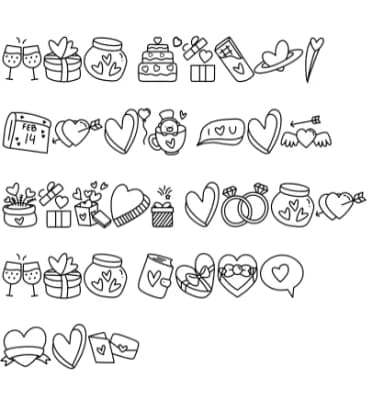
1 / 8About Happy Vanlentine Day Font
You're laying out Valentine invitations and need ornaments that feel sketchy and warm, not slick or corporate looking. Happy Vanlentine Day by Chonada is a dingbats font designed around exactly that idea: playful valentine illustrations in a loose, hand-drawn style that looks like someone actually sketched each ornament with a pencil. The warmth of the linework is what makes it work so well for personal stationery and handmade projects.
This font excels for wedding invitation suites where custom dingbats add genuine charm, DIY craft labels on homemade treats and baked goods, hand-lettered Valentine greeting cards, and boutique gift wrapping or packaging designs. It works on Etsy product tags too, or for handmade sticker sheets and scrapbooking accents. Since each character in a dingbats font corresponds to a different illustration, you can layer ornaments and build decorative borders without juggling multiple typefaces, which keeps your design workflow straightforward and fast.
Happy Vanlentine Day Font is a versatile dingbats font that works for both headings and body text. Pair it with a contrasting sans-serif or serif font to add visual interest and a clear distinction between titles and body copy.